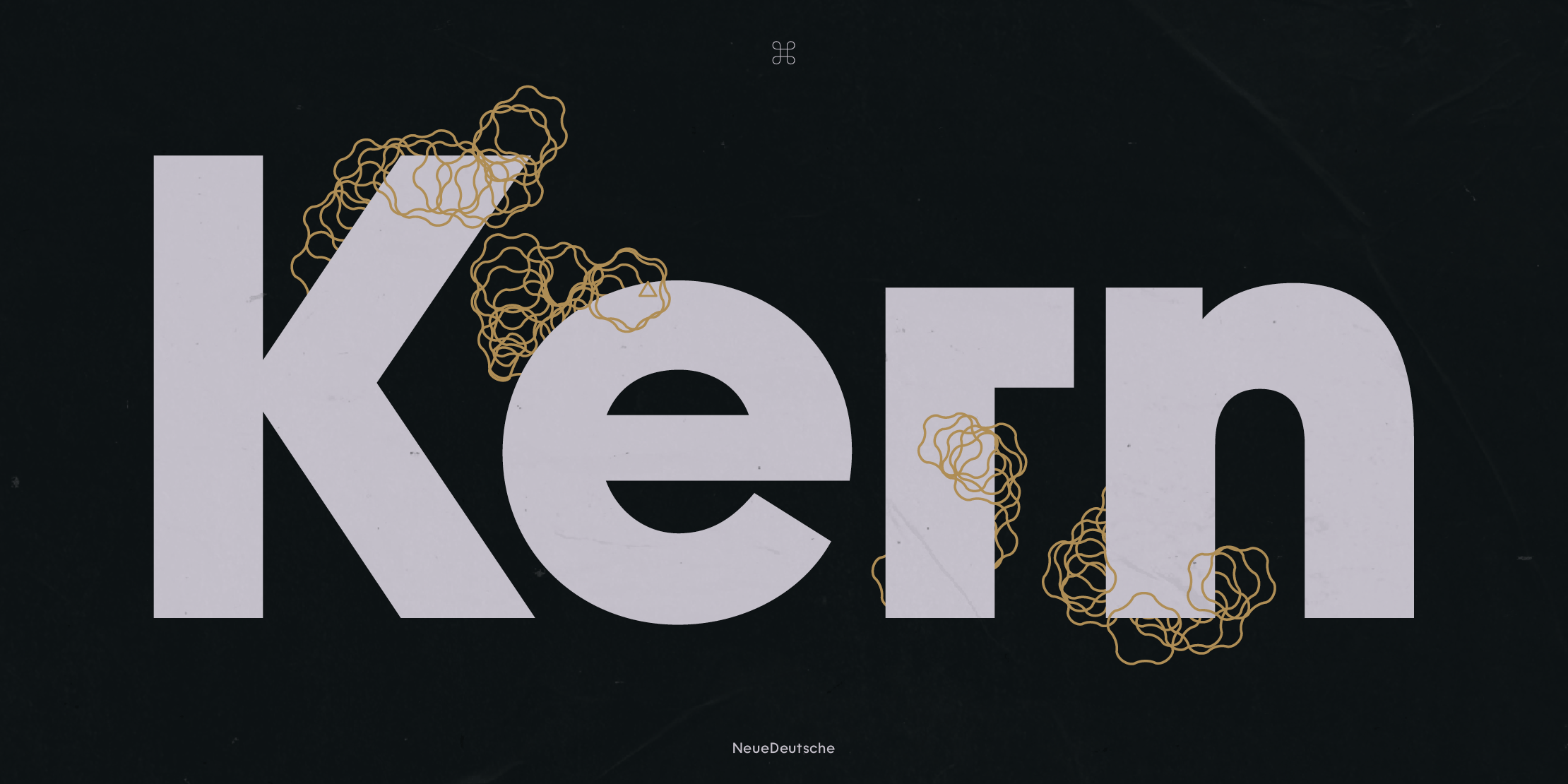
ND Kern Font is perfect for precision engineering documentation, technical manufacturing specifications, scientific research publications, typographic design portfolios, professional printing services, advanced typography workshops, graphic design education materials, layout optimization guides, font development resources, and meticulous design system documentation.
ND Kern Font is exciting because it represents the pinnacle of typographic precision and kerning excellence through its meticulously crafted letterforms that demonstrate perfect spacing harmony while delivering messages with technical accuracy and professional typographic mastery.
ND Kern Font family includes Regular, Bold, Light, Medium, Italic, Condensed, Extended, and Micro variations, providing designers with a complete precision toolkit to create flawlessly spaced visual communications that showcase advanced typography skills and attention to technical detail.
ND Kern Font embodies the essence of typographic craftsmanship and technical precision, making it an indispensable tool for design professionals, type foundries, and educational institutions that prioritize excellence in letter spacing and typographic hierarchy. This expertly engineered typeface brings professional credibility to any design project, whether you're developing advanced design systems, creating typography tutorials, or designing materials that require absolute precision in character spacing. The perfectly optimized kerning pairs of ND Kern Font Free Download ensure superior visual harmony while maintaining the technical excellence that professional typographers demand for their most sophisticated projects and educational demonstrations.
Design education professionals consistently select ND Kern Font for typography courses, design workshops, and professional training programs because of its ability to demonstrate proper spacing principles and advanced typographic techniques. The font's precise appearance makes it particularly effective for teaching design fundamentals and creating educational materials that showcase professional typography standards.
ND Kern Font dominates professional environments where typographic excellence and technical accuracy are paramount. Type foundries, design agencies, and printing companies rely on this font to create materials that demonstrate their commitment to craftsmanship and attention to the subtle details that separate amateur from professional typography work.
The publishing and design technology sectors have embraced ND Kern Font for font development documentation, design software tutorials, and professional typography references. Its technically perfect visual character helps organizations create educational materials that teach proper spacing techniques, appealing to designers seeking to master the sophisticated art of professional typography and advanced layout design principles.